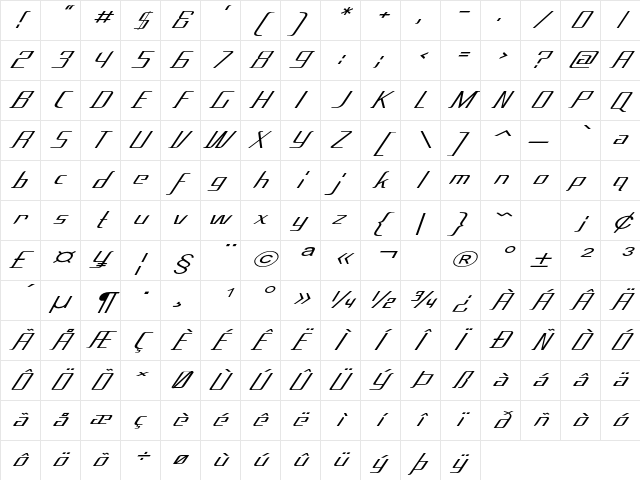
Tanzer Extra-expanded Italic
Style: Extra-expanded Italic
Tanzer Family
Tanzer Extra-expanded Italic
Design Context for Tanzer
Tanzer is a composed and adaptable typeface that performs quietly and consistently across a wide range of design contexts. The slanted form adds forward momentum and visual energy.
Pro Tip: Use Tanzer for emphasis, pull quotes, and subheadings where its slanted energy can add rhythm to the layout.